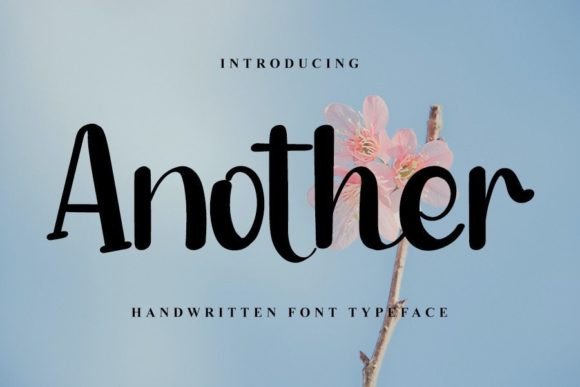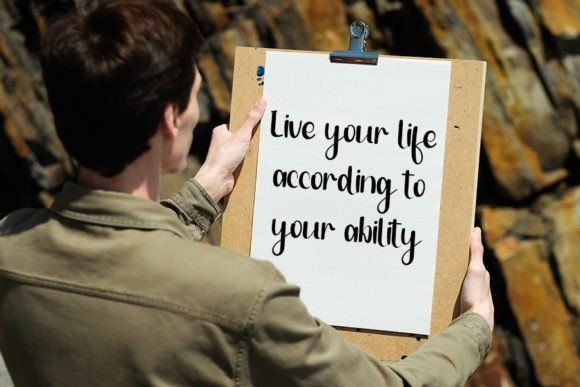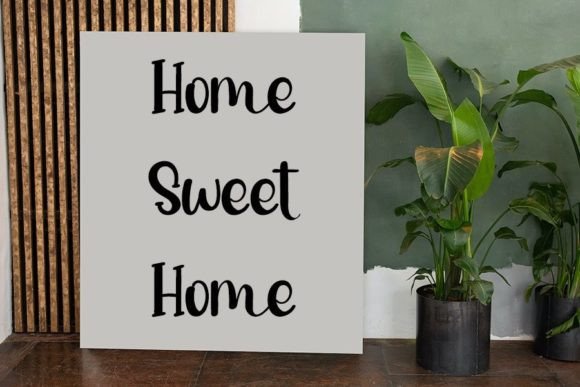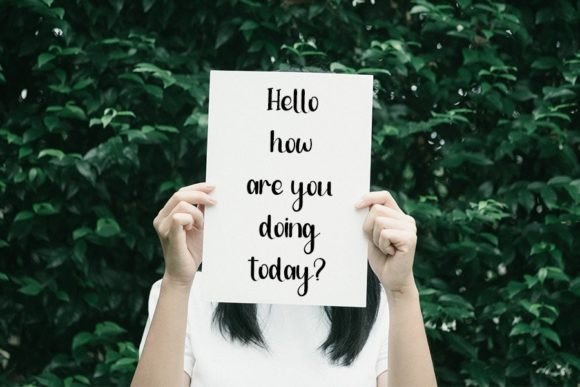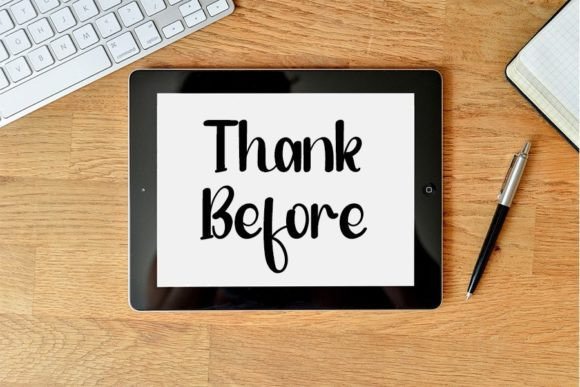
Another Font
**Another** is a captivating handwritten font that combines neatness and beauty with an elegant touch. Its clean and well-crafted design makes it perfect for a wide range of projects, allowing you to add a touch of sophistication to your favorite creations. Whether you’re working on invitations, logos, social media posts, greeting cards, or any other design project, **Another** effortlessly enhances the overall aesthetic with its distinct and timeless style.
The font’s versatility shines through, making it suitable for various contexts. Its elegant touch adds a sense of refinement, making it an ideal choice for upscale designs. Whether used for formal invitations or high-end branding, **Another** elevates the overall presentation, ensuring your projects exude a sense of class and elegance.
**Another**’s timeless style ensures its longevity, making it a valuable asset for any designer. Its clean and legible characters, coupled with a hint of sophistication, make it a versatile choice for both print and digital media. The font’s elegant appeal allows it to seamlessly blend into different design themes, making it a reliable option for a wide array of creative endeavors.
By incorporating **Another** into your projects, you infuse them with a sense of timeless elegance and refined simplicity. Its clean lines and elegant curves create a visually pleasing text that captures attention and leaves a lasting impression. Whether used for formal invitations, corporate materials, or personal projects, **Another** adds a touch of sophistication, ensuring your designs stand out with an understated and classy charm.